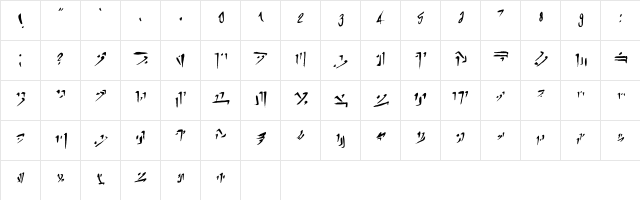
Esoteric Regular
Design Context for Esoteric Typeface
Esoteric is a composed and adaptable typeface that performs quietly and consistently across a wide range of design contexts.